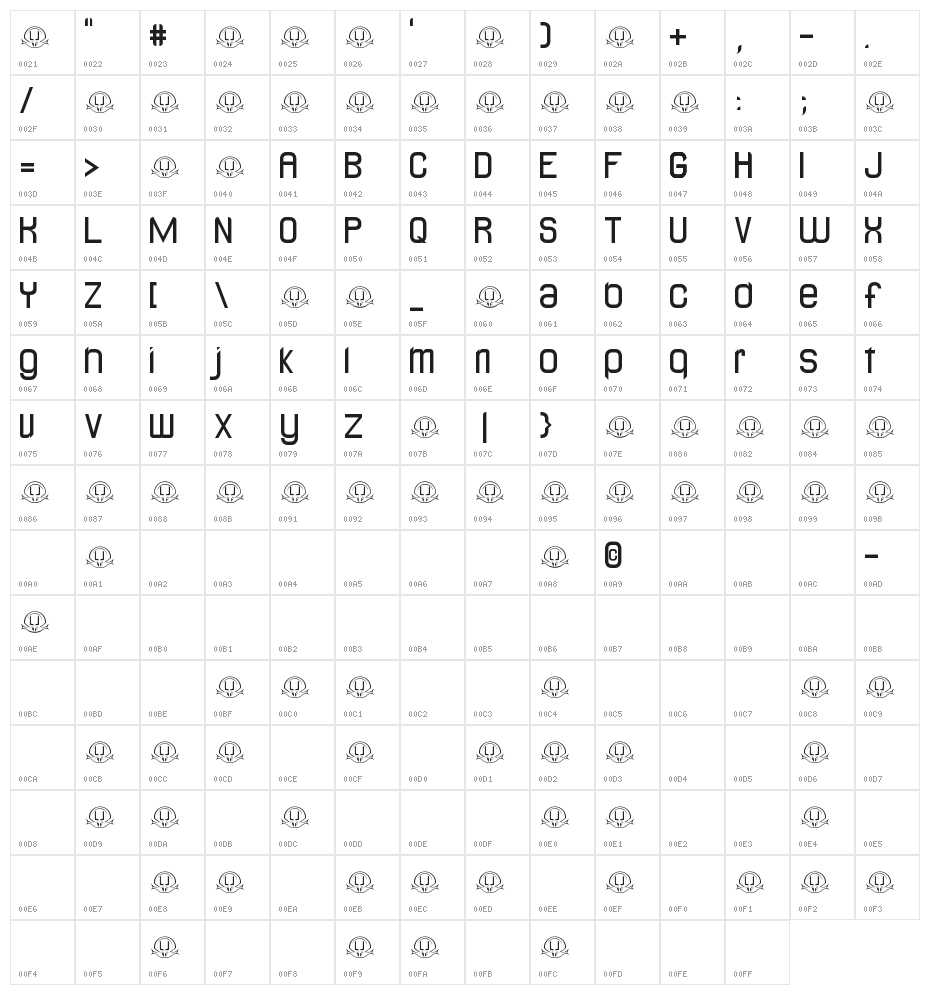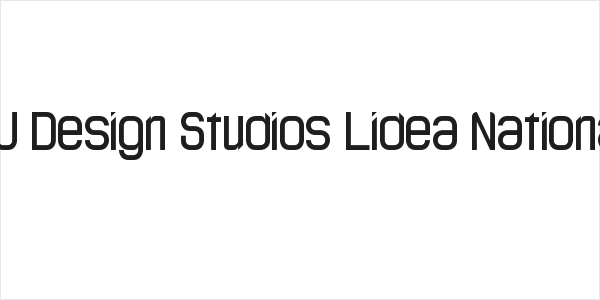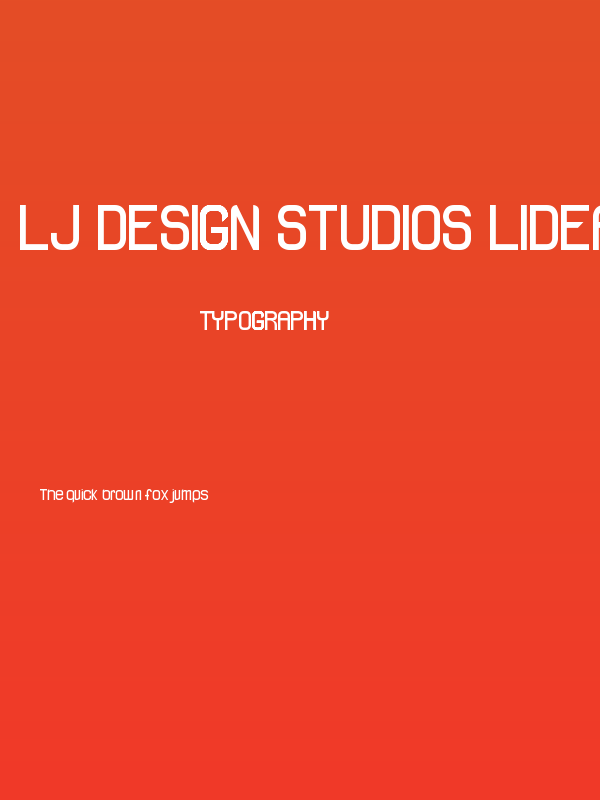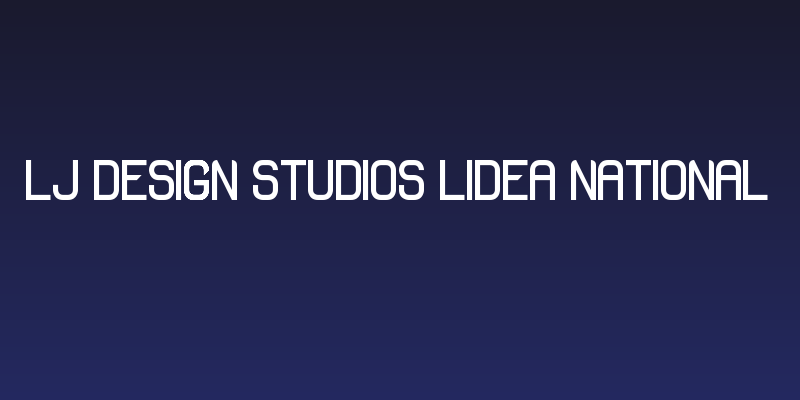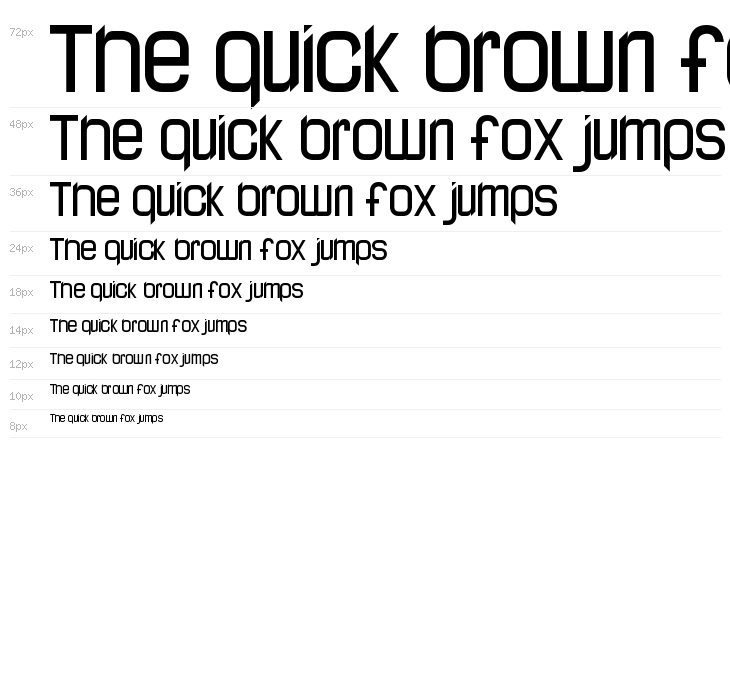
LJ Design Studios Lidea National Font
LJ Design Studios Lidea National Description
This font features a modern, geometric design with clean lines and a structured appearance. The uppercase letters are bold and angular, with a consistent height and width that create a uniform look. The lowercase letters maintain the geometric style, offering a slightly softer appearance with rounded edges. The numerals are similarly structured, providing a cohesive aesthetic throughout. Special characters are included, maintaining the same design principles. This font is ideal for projects that require a contemporary and professional look, such as branding, advertising, and digital media.
| Proposed Projects | Ideal for branding, advertising, digital media, and modern design projects. |